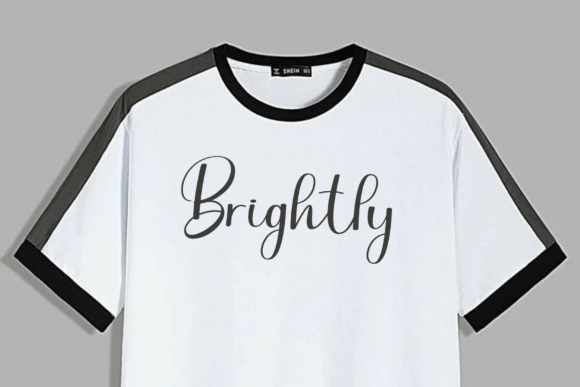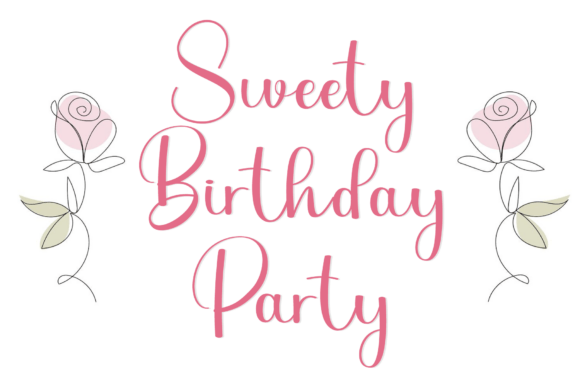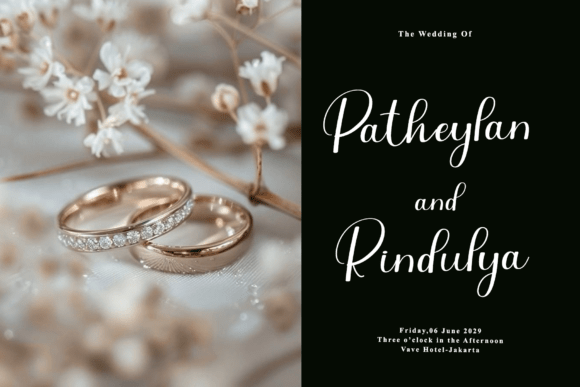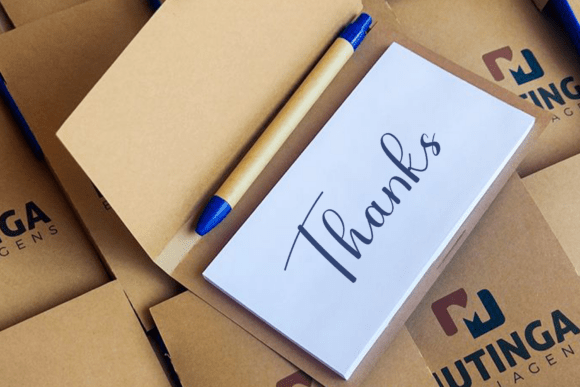
Introducing Alphabet Font: A Masterpiece of Modern Calligraphy
In the realm of typography, few fonts have managed to strike a balance between traditional elegance and modern sophistication. Alphabet Font is one such marvel, seamlessly blending the classic structures of calligraphy with a contemporary aesthetic that is both stylish and refined. This exquisite handwriting font is a treasure trove of visual delights, boasting high-contrast rhythms, elegant flourishes, and a versatility that makes it perfect for a wide range of applications.
The Anatomy of Alphabet Font
At the heart of Alphabet Font lies its distinctive visual rhythm, characterized by high-contrast strokes that dance across the page. Thick, grounded downstrokes provide a sense of solidity and foundation, while delicate, wispy hairline connectors add a touch of whimsy and lightness. This contrast creates a dynamic tension that draws the eye and captivates the imagination.
One of the most striking features of Alphabet Font is its expansive, looping flourishes. These elegant extensions add a sense of customized artistry and professional grace to any text, elevating it from mere words to a work of art. Whether used in a boutique brand identity, a luxury event invitation, or an elegant editorial title, Alphabet Font’s flourishes are sure to leave a lasting impression.
Design Applications for Alphabet Font
Given its sophisticated and stylish aesthetic, Alphabet Font is an ideal choice for designers and crafters looking to add a touch of luxury to their projects. Here are just a few examples of how this versatile font can be used:
• Boutique Brand Identities: Alphabet Font’s elegant, high-end feel makes it perfect for boutique brands looking to establish a sophisticated and refined visual identity.
• Luxury Event Invitations: Whether it’s a wedding, a gala, or a high-end corporate event, Alphabet Font’s luxurious aesthetic is sure to make a lasting impression on guests and attendees.
• Professional Signature Watermarks: Add a touch of elegance to your professional correspondence with Alphabet Font’s beautiful, flowing script.
• Elegant Editorial Titles: Use Alphabet Font to add a touch of sophistication and refinement to your editorial titles, whether in a magazine, newspaper, or online publication.
Tips for Working with Alphabet Font
To get the most out of Alphabet Font, here are a few tips to keep in mind:
• Use it sparingly: Given its luxurious aesthetic, Alphabet Font is best used sparingly to avoid overwhelming the reader. Use it for headings, titles, or key phrases to add emphasis and visual interest.
• Experiment with flourishes: Don’t be afraid to experiment with Alphabet Font’s expansive, looping flourishes. They can add a touch of elegance and sophistication to any text.
• Pair it with contrasting fonts: To create visual interest and hierarchy, pair Alphabet Font with contrasting fonts that complement its elegant aesthetic.
Alphabet Font is a true masterpiece of modern calligraphy, offering a unique blend of traditional elegance and contemporary sophistication. Its high-contrast visual rhythm, elegant flourishes, and versatility make it an ideal choice for designers and crafters looking to add a touch of luxury to their projects. Whether used in a boutique brand identity, a luxury event invitation, or an elegant editorial title, Alphabet Font is sure to leave a lasting impression.